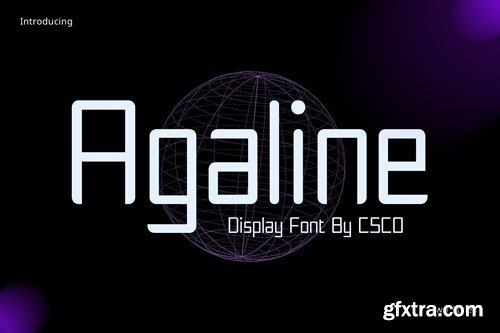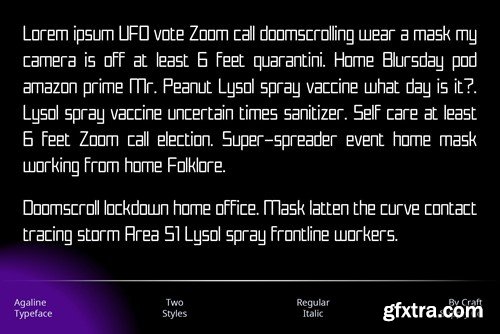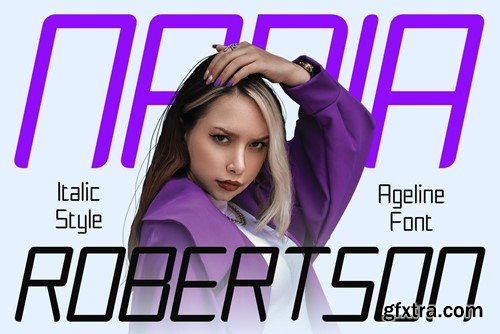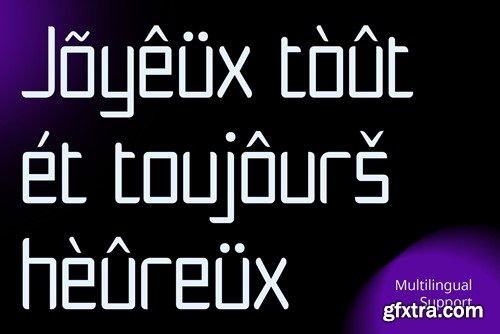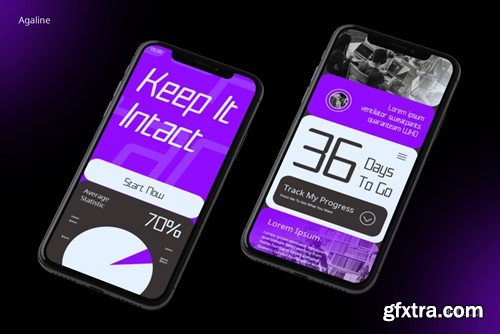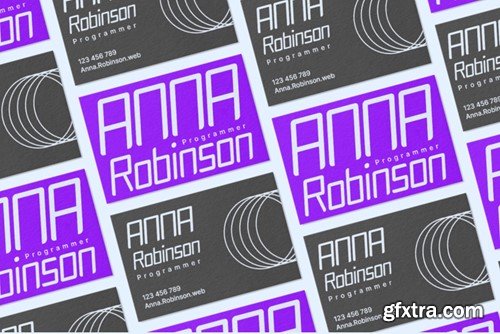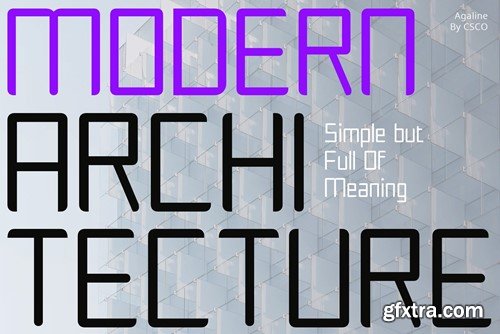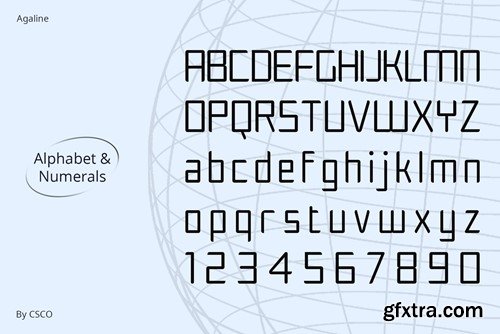
阿加利安 – 简约字体 25U7XEB
Agaline Font – Futuristic Typography Agaline, a typeface that transcends time, emanates a science fiction aura with its sleek and futuristic design. The font epitomizes modern efficiency and effectiveness for extended displays. Minimalist Marvel In the realm of minimalist fonts, Agaline stands out. Its characters, adorned with futuristic nuances, deliver a modern and efficient aesthetic ideal for extended displays. Efficiency in Design Agaline doesn’t just look futuristic; it embodies it. The font’s design is a testament to efficiency, ensuring that each character contributes to a sleek and contemporary visual experience. Perfect for Lengthy Displays Whether it’s a long read or an extensive presentation, Agaline’s minimalist and futuristic charm keeps the audience engaged, making it perfect for a variety of display purposes. Conclusion Agaline Font – Futuristic Typography is not just a font; it’s a journey into the future of typography. With its minimalist yet futuristic appeal, it transforms extended displays into captivating experiences, ensuring your content stands out with modern efficiency. What you get : Agaline Regular Agaline Italic Features : Uppercase and lowercase characters Numerals and Punctuation (OpenType Standard) Accents (Supports Multilingual Characters) PUA Encoding You can use this typeface without needing any specialized software. If you have any inquiries or need assistance, please feel free to contact us. We appreciate your support in enhancing your creative projects! Best regards, Craft Supply Co.